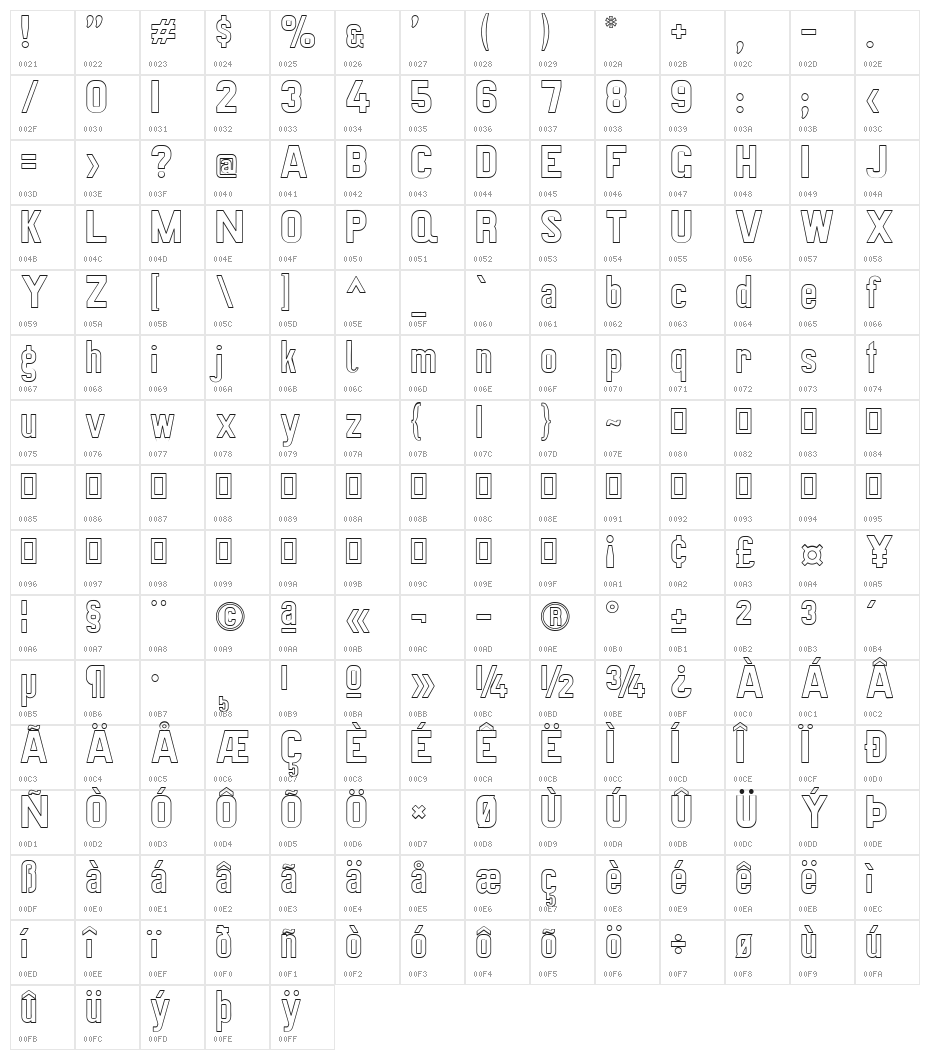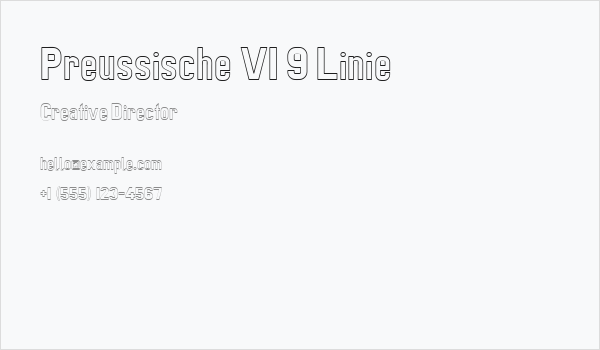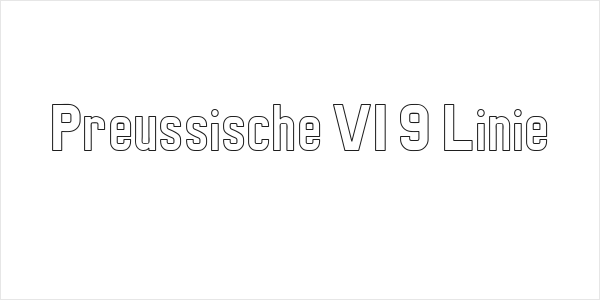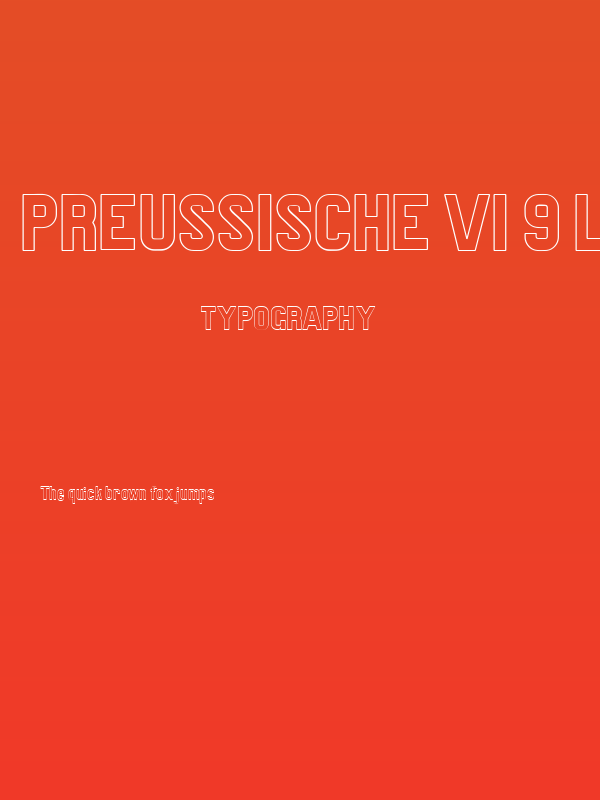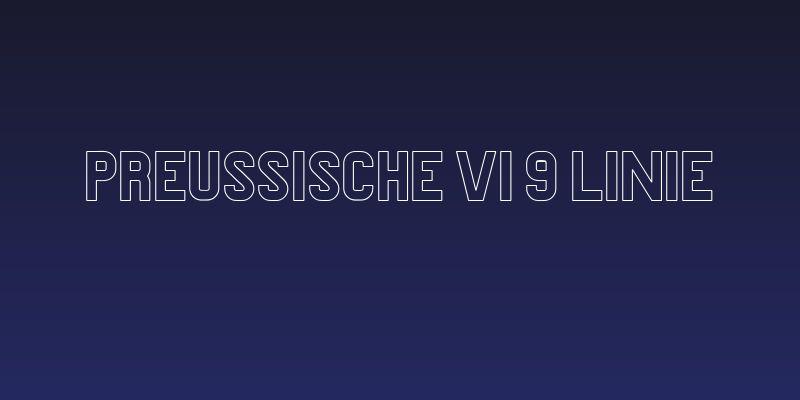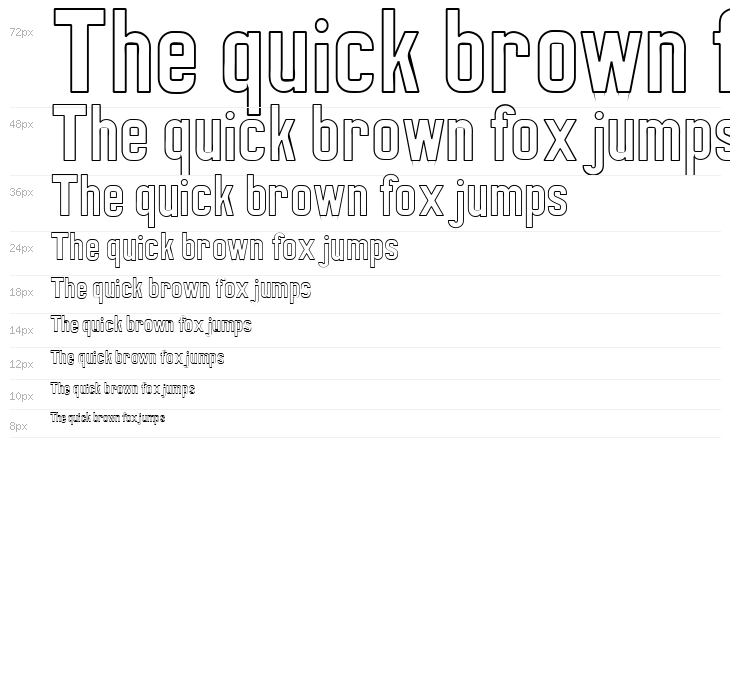
Preussische VI 9 Linie Font
Preussische VI 9 Linie Description
This font features a bold, geometric design with a strong presence. The uppercase and lowercase letters are constructed with clean lines and a uniform stroke width, giving it a modern and structured appearance. The numerals and special characters maintain this consistency, ensuring a cohesive look across all elements. The font's outline style adds a unique touch, making it suitable for eye-catching designs. Its clarity and simplicity make it versatile for various applications, while the outlined nature provides a distinctive aesthetic.
| Proposed Projects | Ideal for headlines, posters, and branding projects where a strong visual impact is desired. |